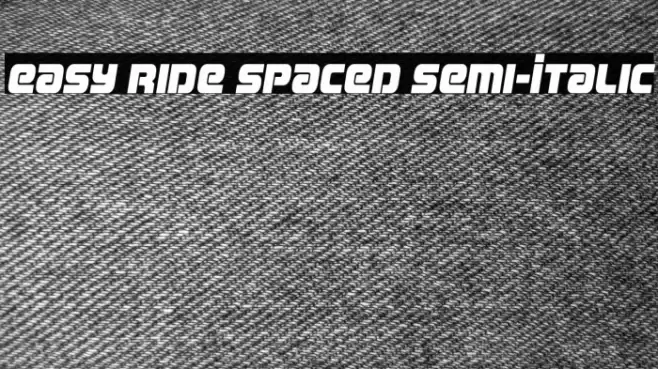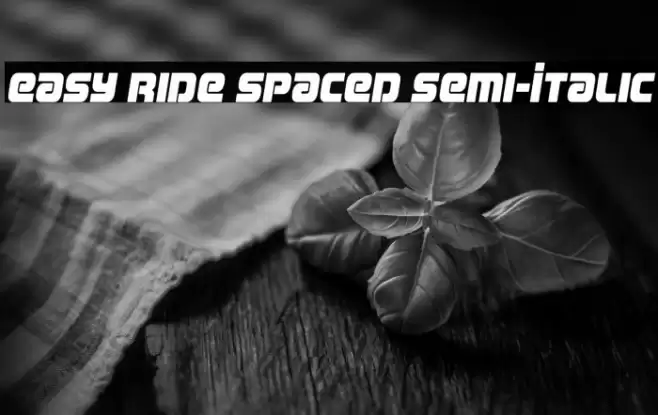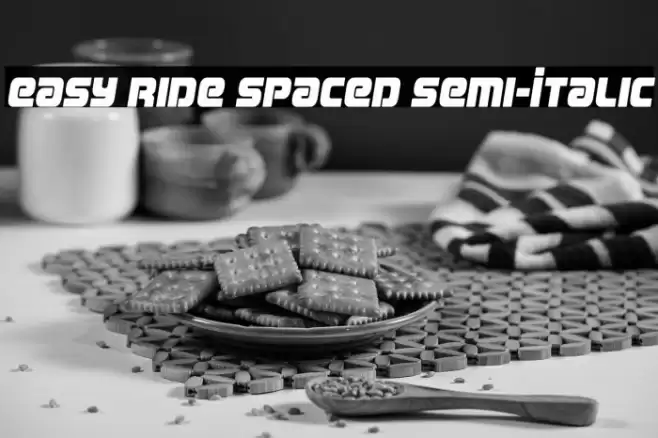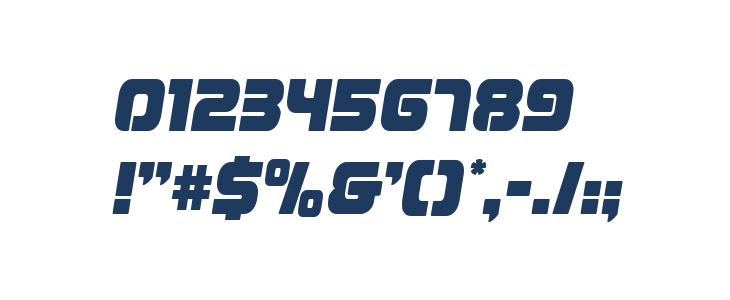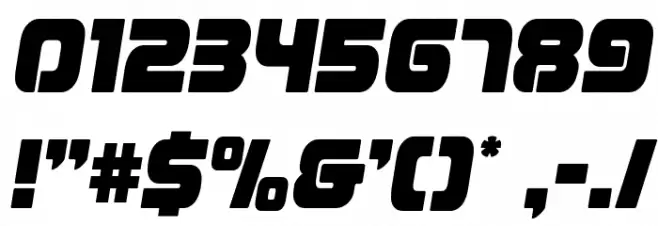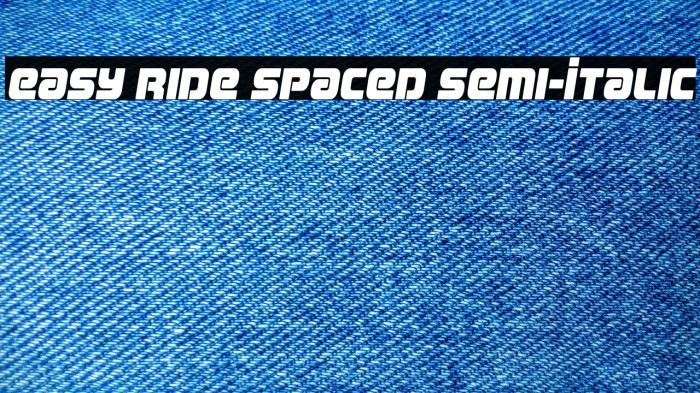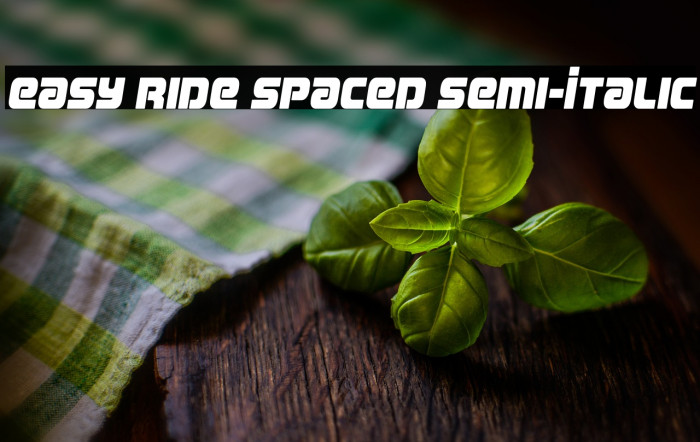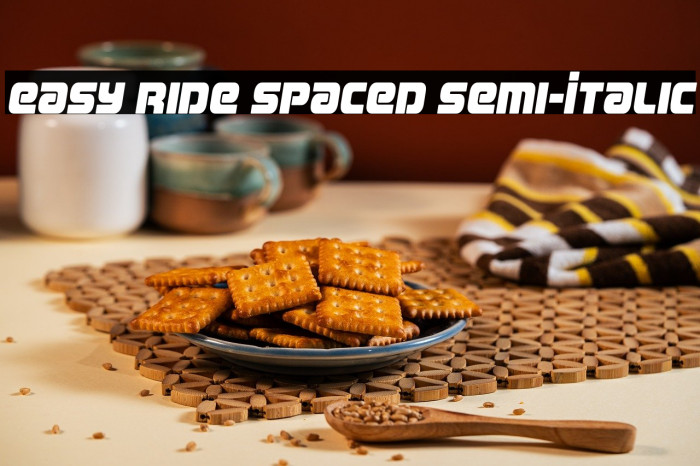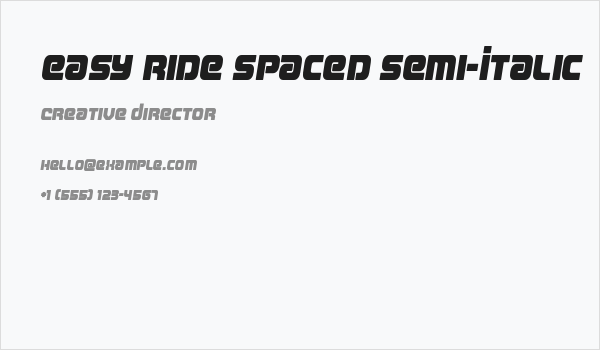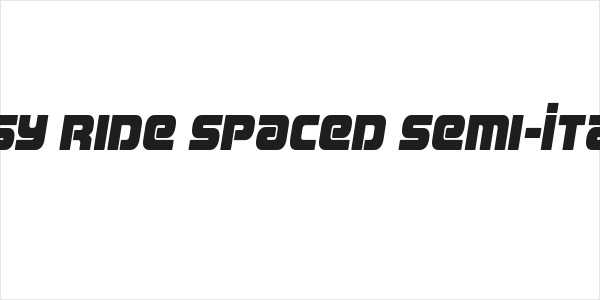
Easy Ride Spaced Semi-Italic Font
Easy Ride Spaced Semi-Italic Description
This font features a bold and dynamic style with a semi-italic slant, giving it a sense of motion and energy. The characters are designed with a futuristic and modern aesthetic, characterized by smooth curves and sharp angles. The uppercase and lowercase letters maintain a consistent style, with a slightly condensed width that enhances readability while preserving a unique visual appeal. The numerals and special characters are crafted to match the overall design, ensuring a cohesive look across all text elements. This font's distinct appearance makes it suitable for projects that require a strong and impactful visual presence.
A bold, semi-italic font with a futuristic and dynamic style from Regular fonts.
- Proposed Projects: Ideal for branding, sports team logos, automotive designs, and tech-related projects.
- Use Case: Logos, Headlines